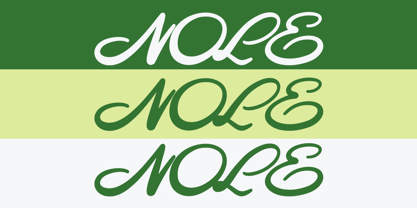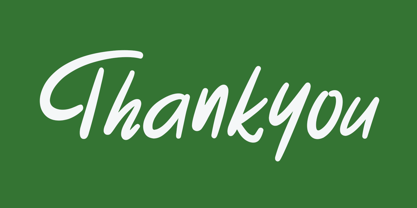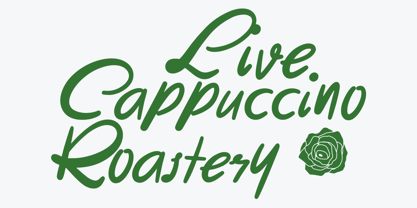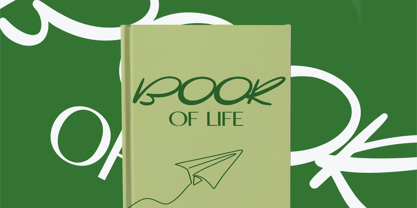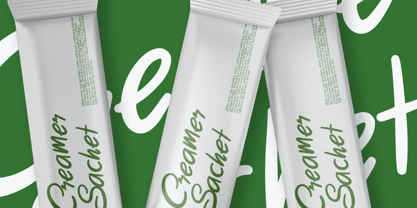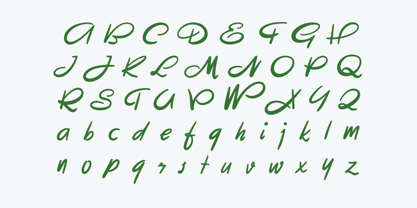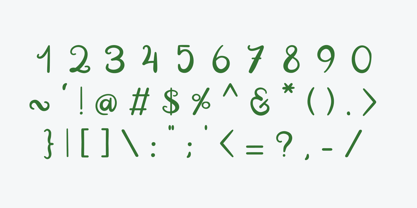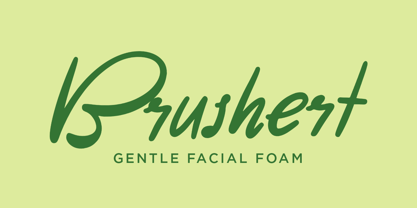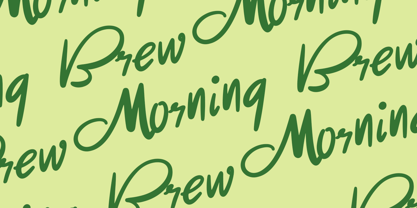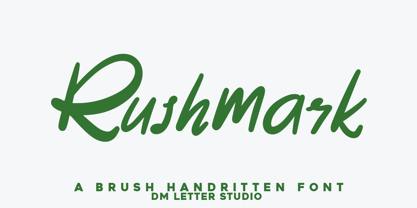
Rushmark
The Rushmark Font Family was designed by Dimas Prasetyo and published by DM Studio. Rushmark contains 1 styles. More about this family
Meet Rushmark, the Groovy Brush Handwriting Font Rushmark is a bold, groovy brush handwriting font built with rhythm and personality. The strokes feel smooth yet expressive, like quick hand lettering with a retro twist. It carries a playful 70s vibe while staying readable and balanced. Each curve flows naturally, so headlines feel energetic without looking chaotic. Use Rushmark for branding, posters, packaging, apparel, social media graphics, and bold quote designs. As a result, your layouts feel warm, fun, and full of character. Why Rushmark sells First, Rushmark installs quickly and works smoothly in Canva, Photoshop, Illustrator, and Procreate. Next, the brush texture is controlled, so it prints cleanly while keeping that handwritten soul. Then layouts build faster because the letter rhythm feels consistent across words. Moreover, the groovy style instantly adds personality, making even simple phrases look eye-catching. Therefore, Rushmark fits perfectly in lifestyle brands, retro themes, and creative merchandise. Fast layouts with the Rushmark Brush Font Start with short, bold phrases so the groovy curves stay the hero. After that, pair Rushmark with a clean sans serif or minimal serif for supporting text. Because the strokes are smooth and rounded, it works beautifully on warm palettes and soft backgrounds. In addition, try stacking words or slightly tightening spacing for a vintage poster look. Finally, save reusable palettes like mustard and cream, burnt orange and brown, dusty pink and charcoal, or black and beige for quick retro projects. Creative uses and quick wins Retro logos and lifestyle branding Posters, flyers, and event graphics Apparel prints, tote bags, and stickers Social media quotes and packaging headlines What you get Uppercase and lowercase letters Numbers and basic punctuation Design tips for Rushmark Use Rushmark as the main statement font and keep body text simple. Also, give it space to breathe so the groovy curves stay smooth and readable. For print, export at 300 DPI to preserve the brush detail. For web, scale slightly larger so strokes stay crisp on mobile screens. Finally, avoid heavy effects. Rushmark already carries strong personality on its own.